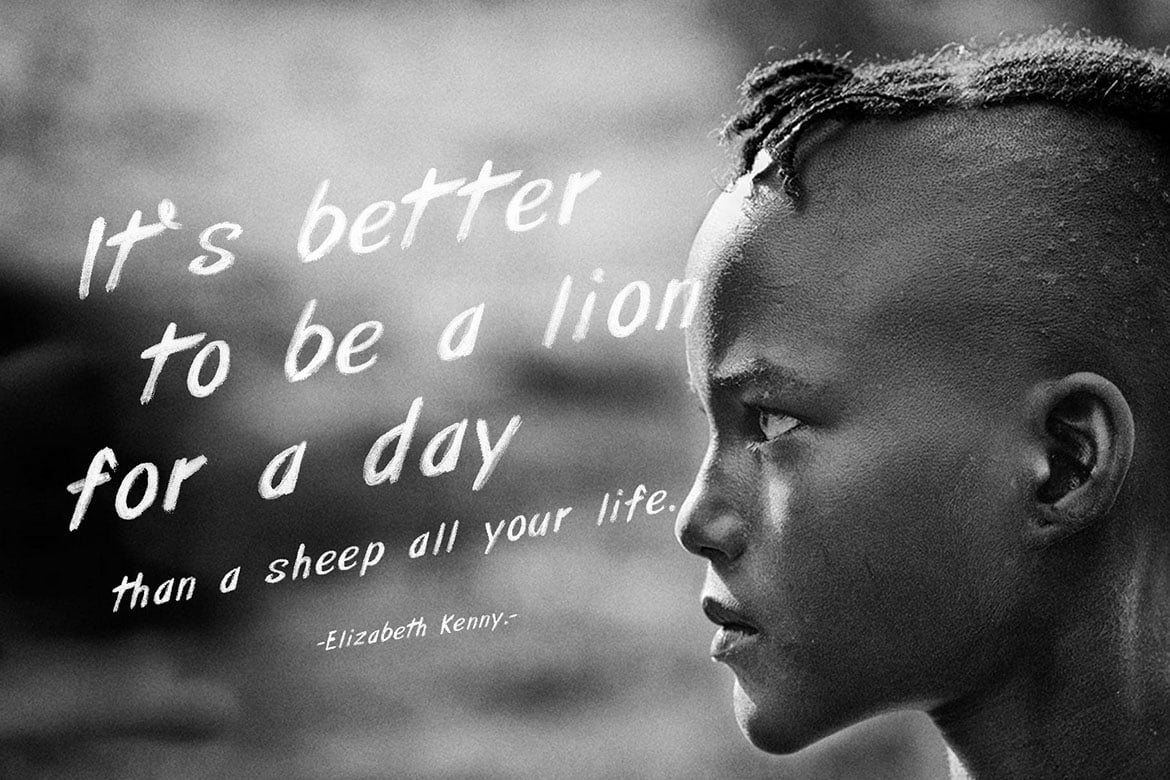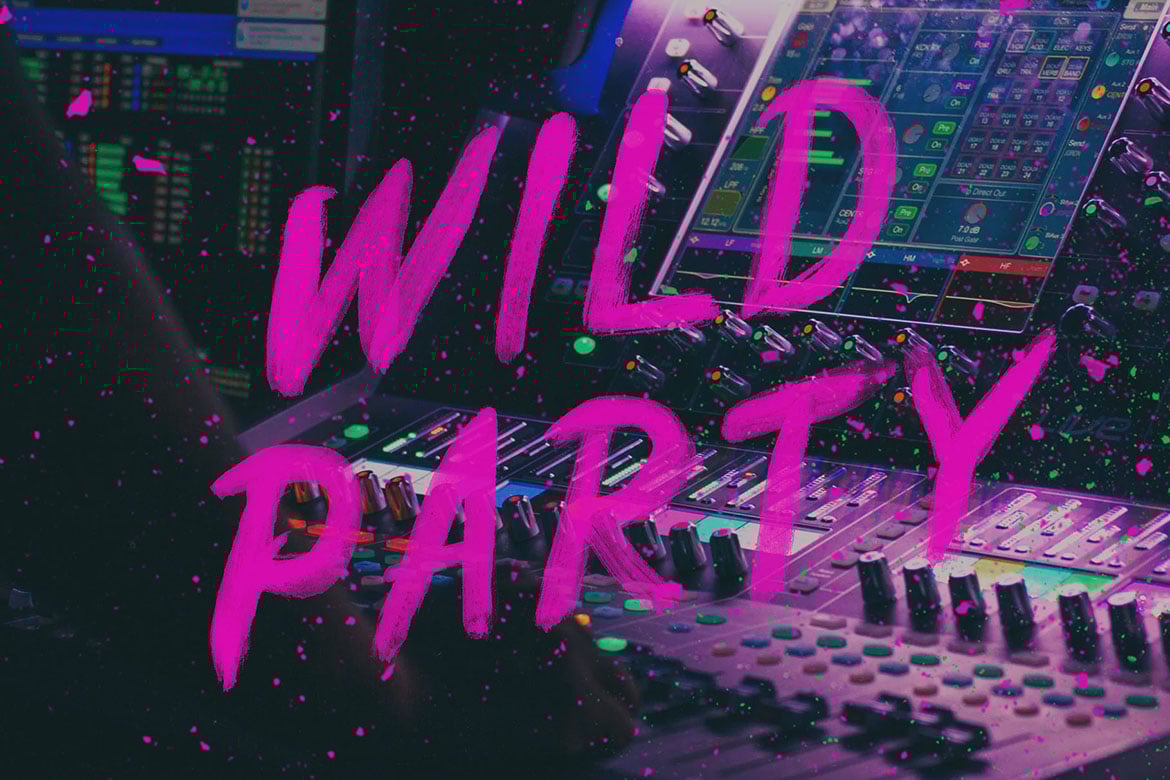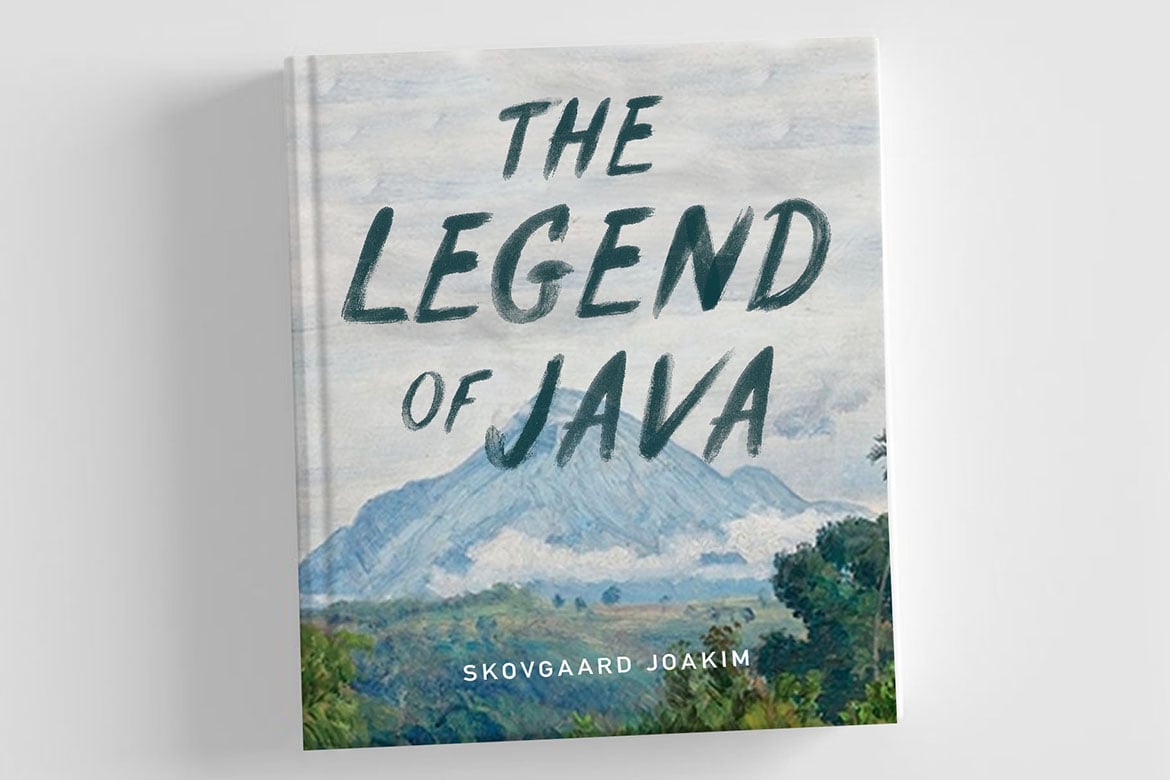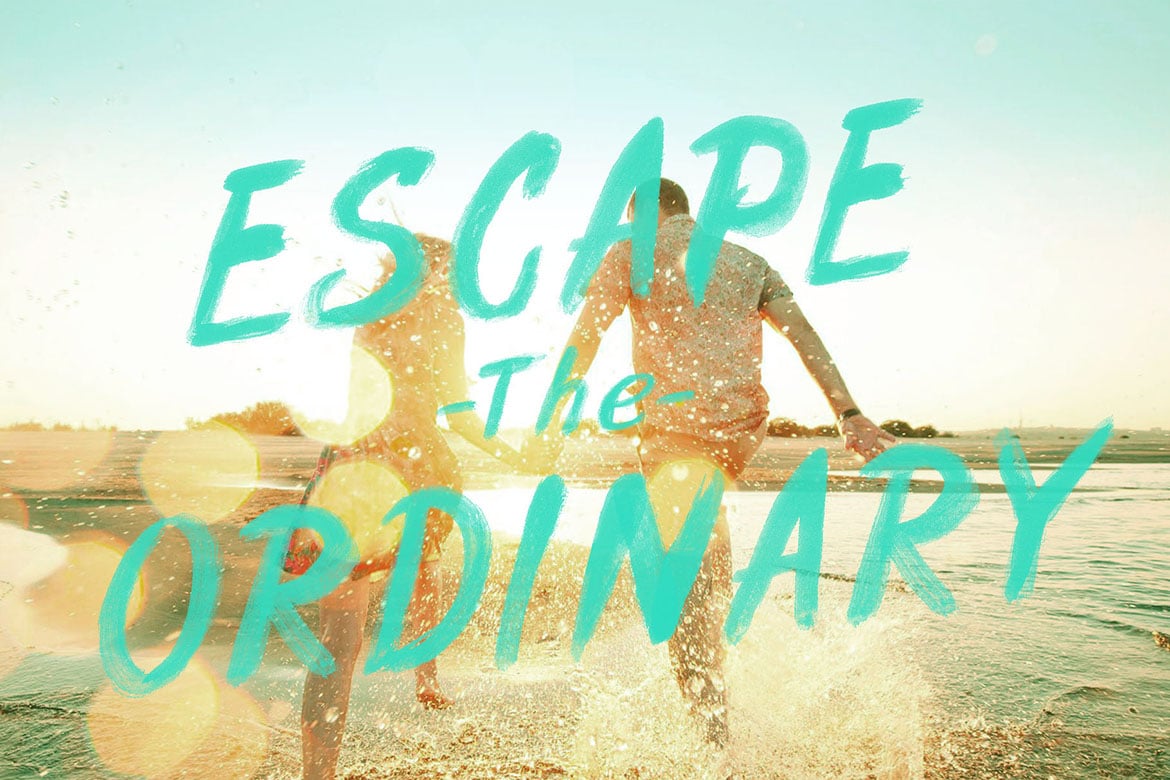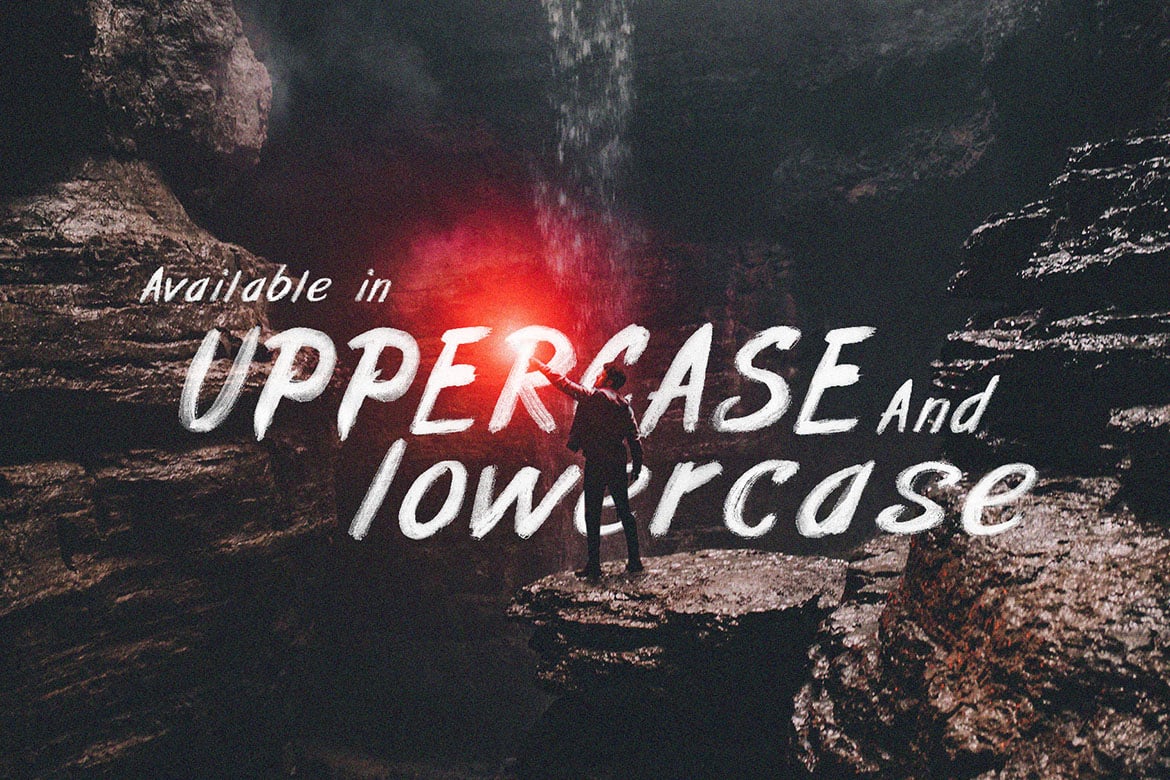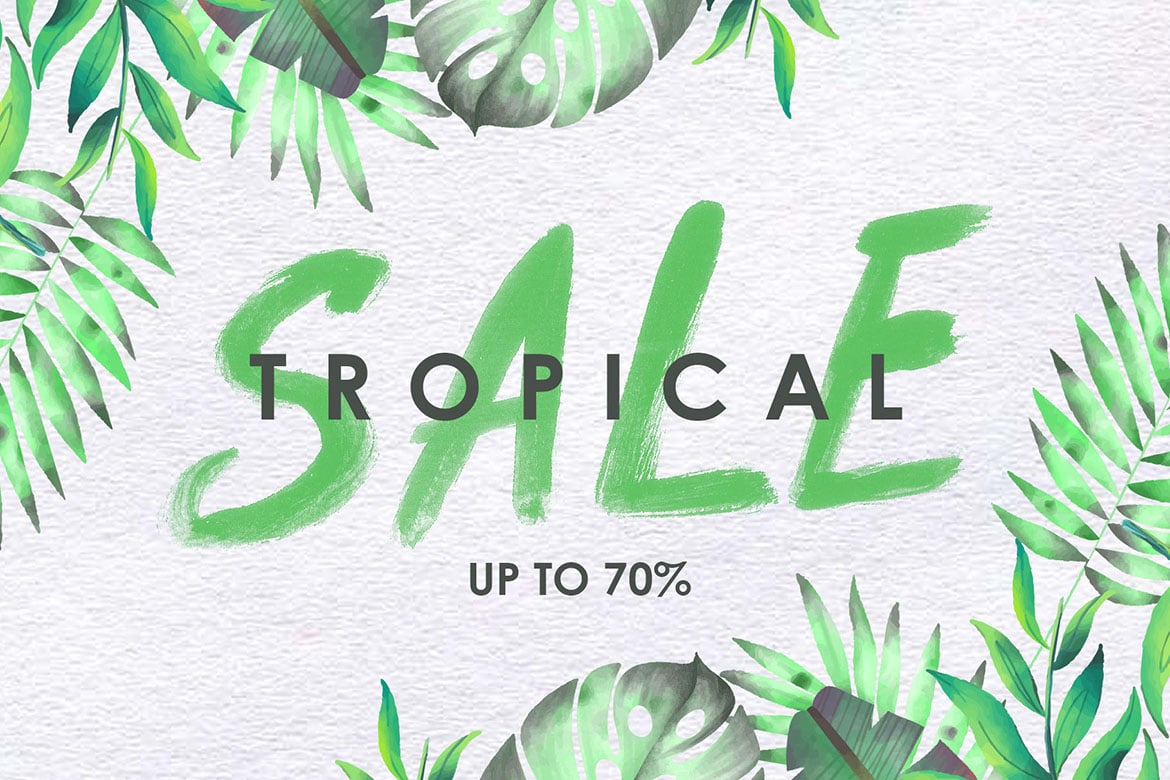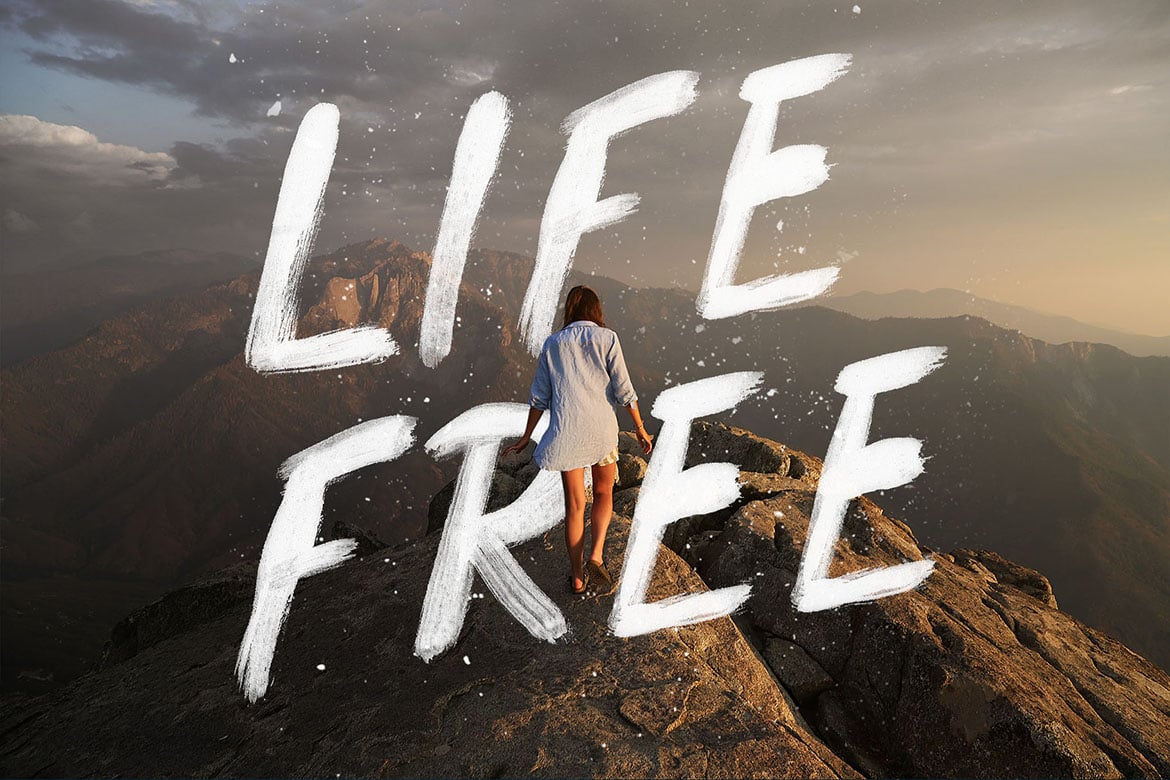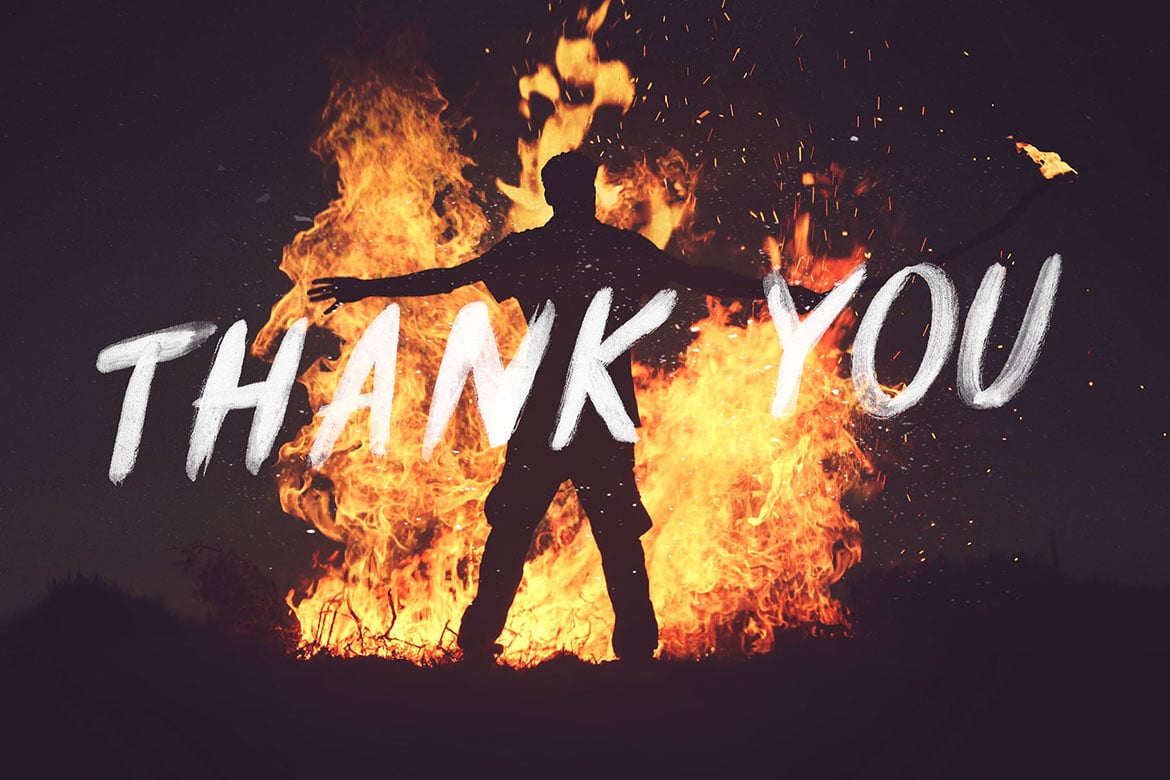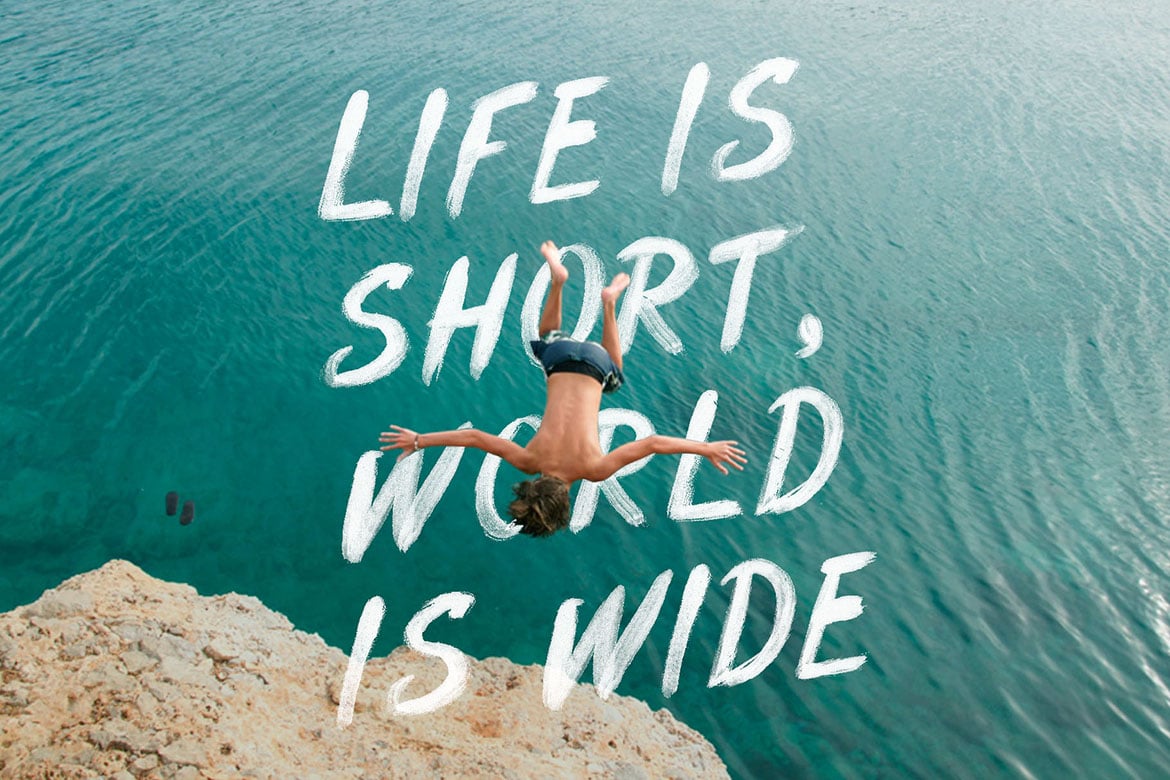
Realistic Brush Fonts Awaken SVG
An original hand drawing ink brush on the paper, combined with the latest SVG format that would keep the transparency and the texture of the font. No need to worry if the SVG font only works in Photoshop cc 2017 and illustrator 2018, you’ll also get the PSD version in here. Plus the other family font that compatible with any software available in ttf and otf. If you don’t know yet to use the SVG, it’s easy to find it in the Youtube. Are you ready to improve your design into the next level? Awaken font is ready to do that for you!
Awaken-SVG This is the main font with the latest tech, you can get the texture and transparency perfectly, you’ll get Opentype-SVG format.